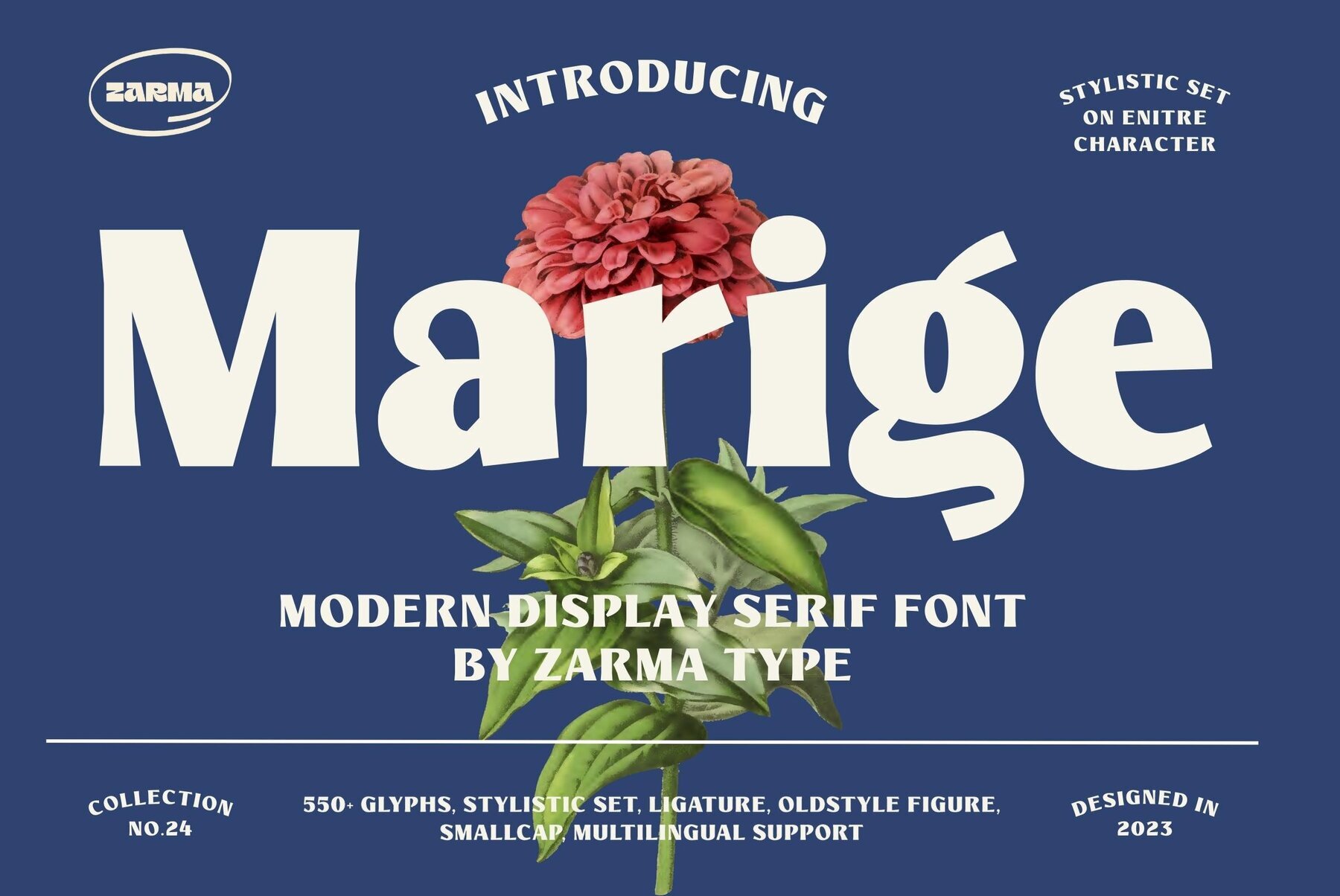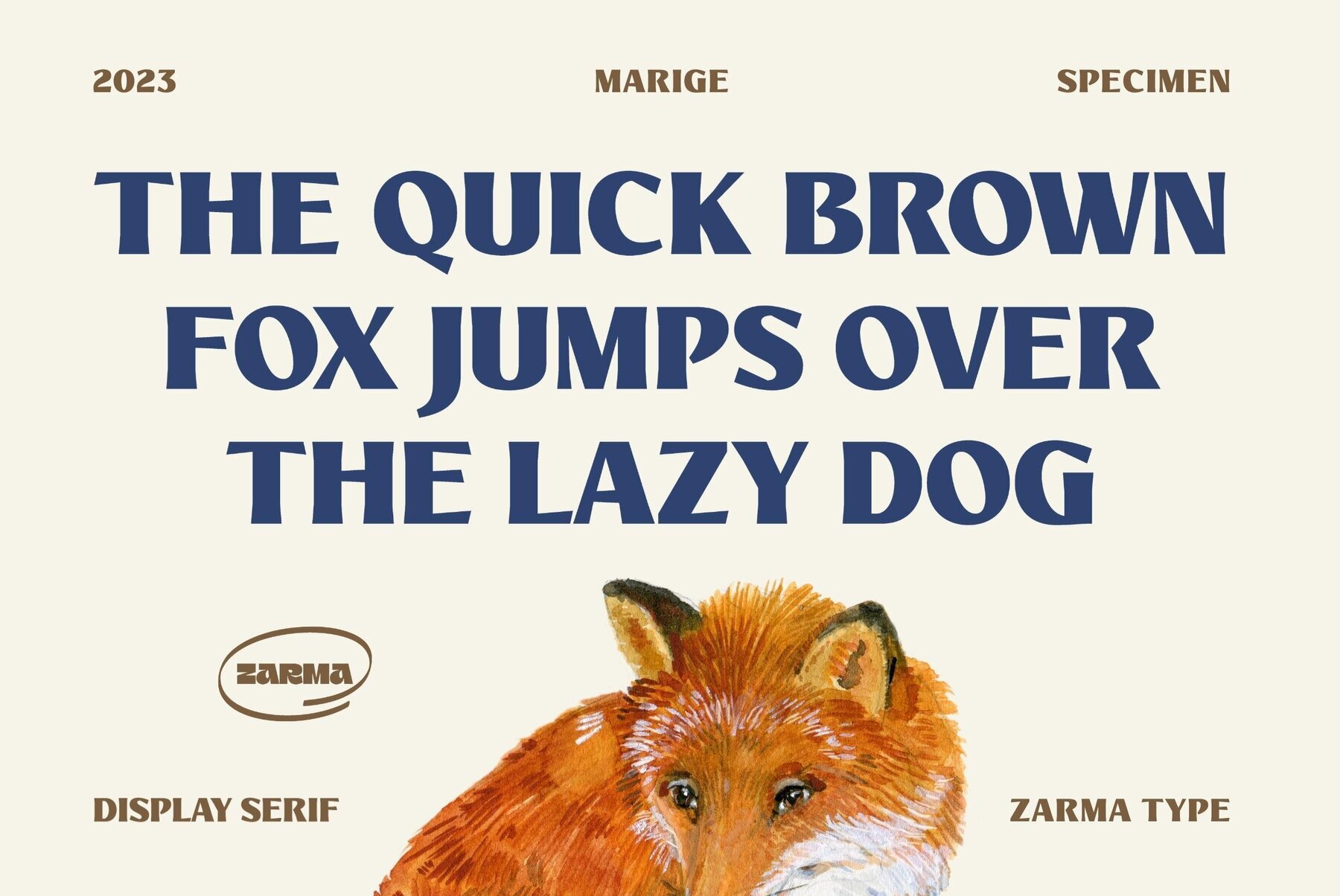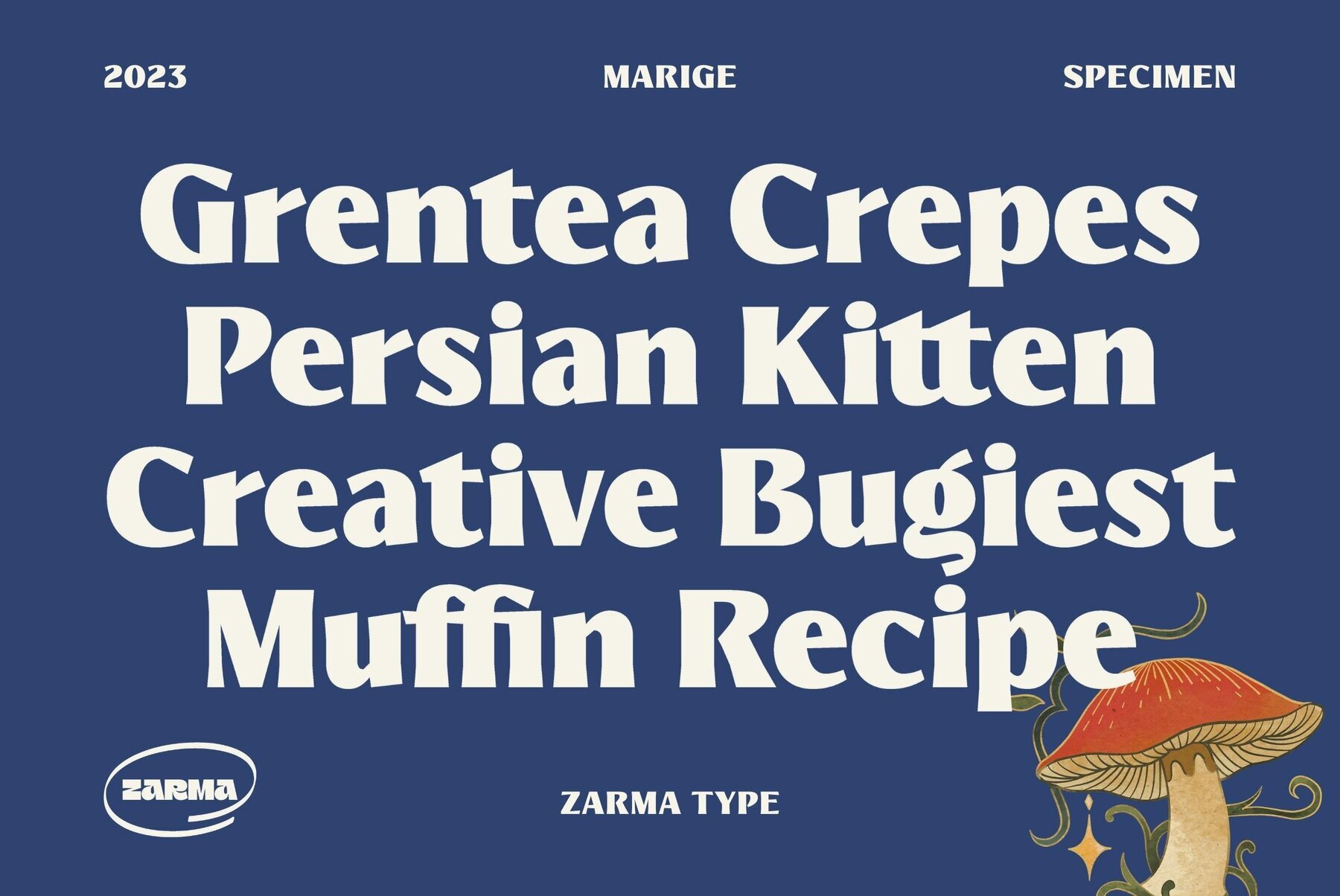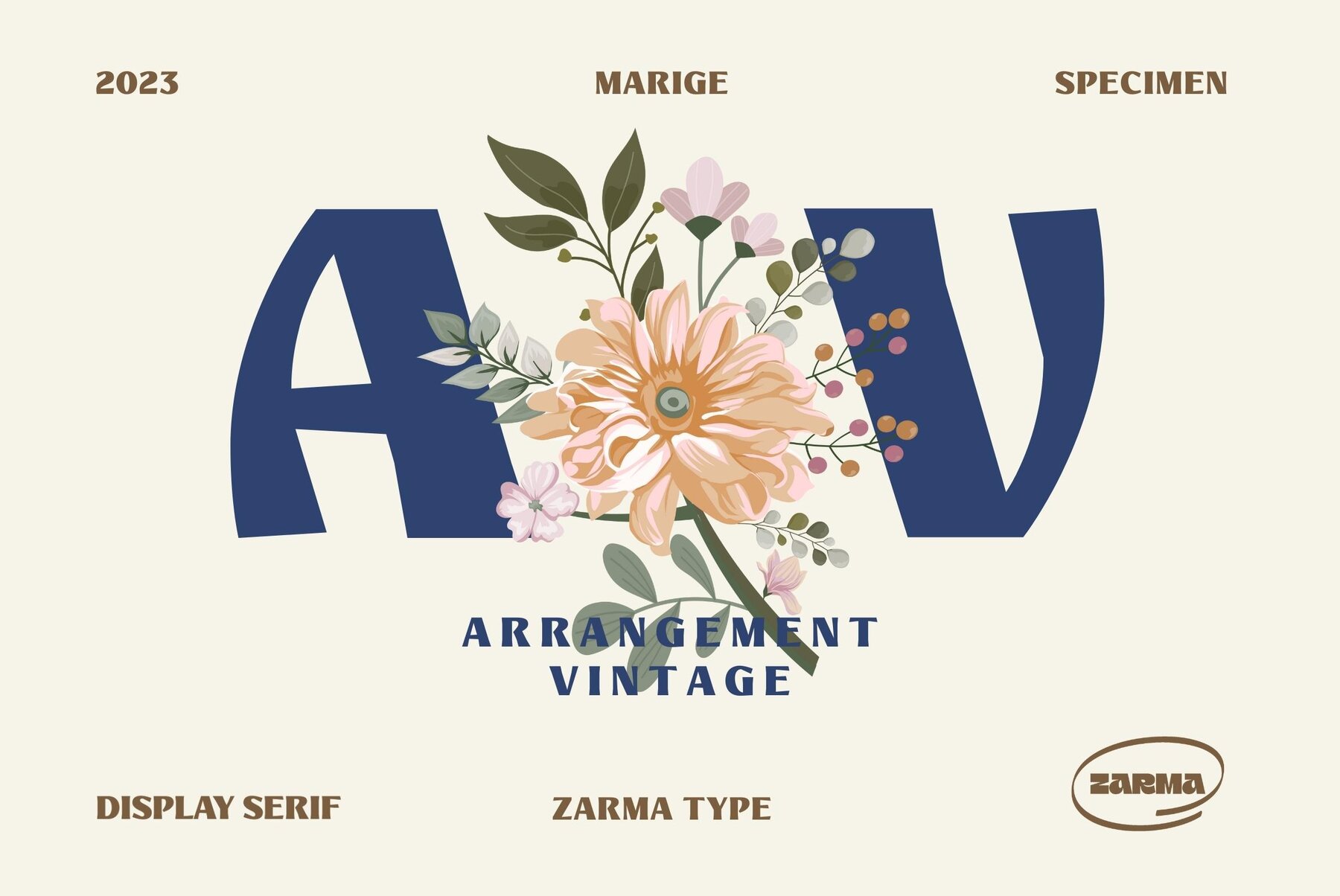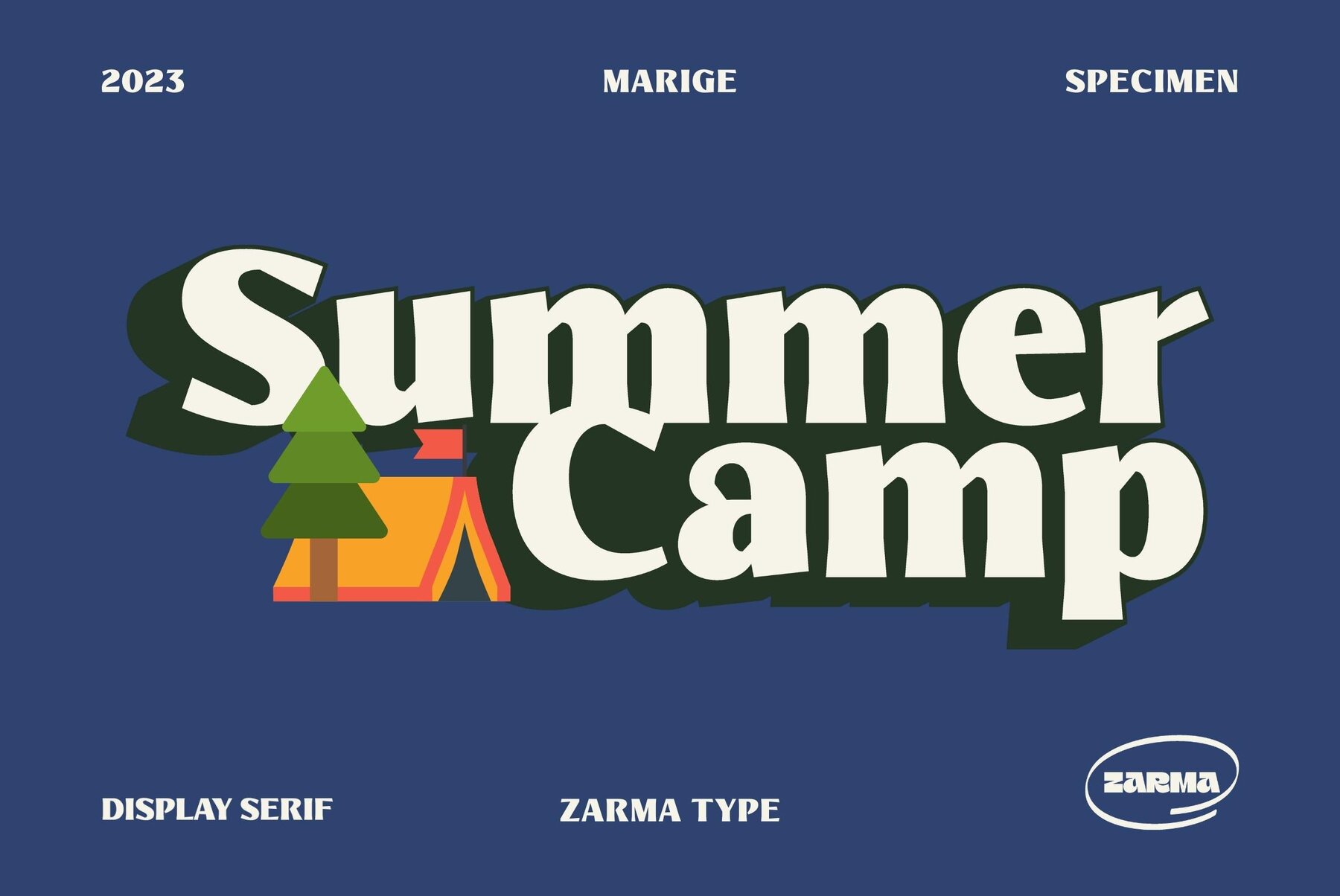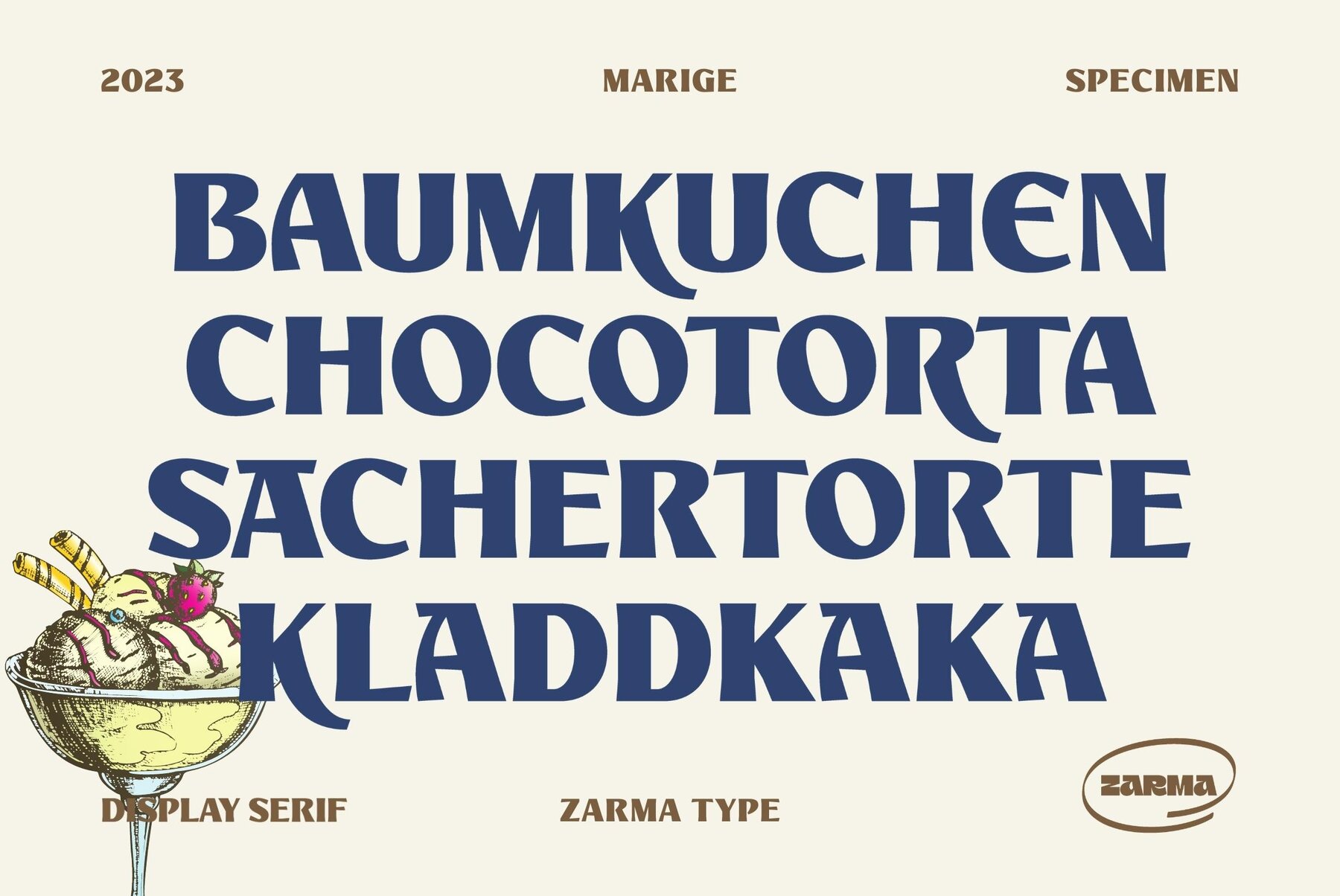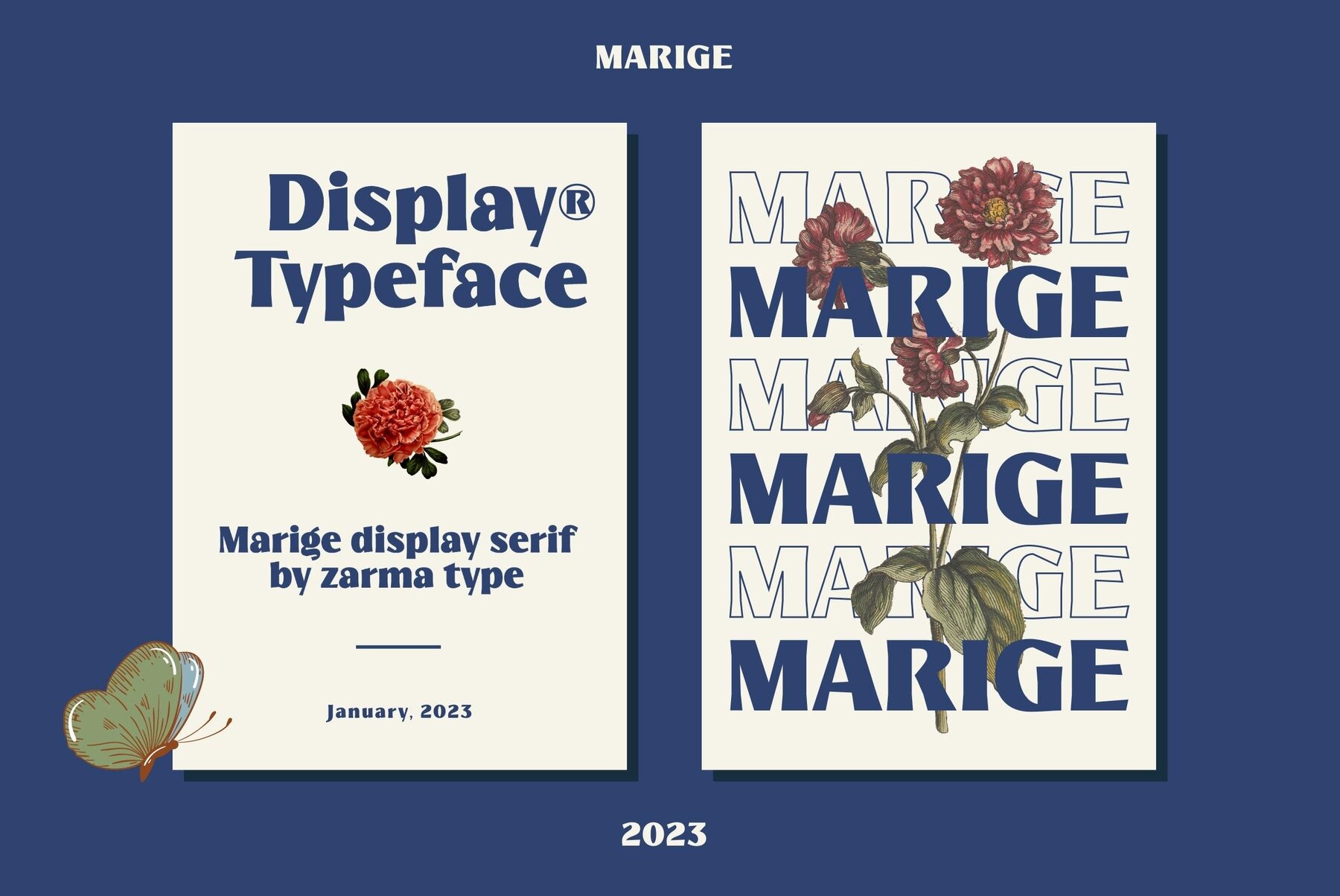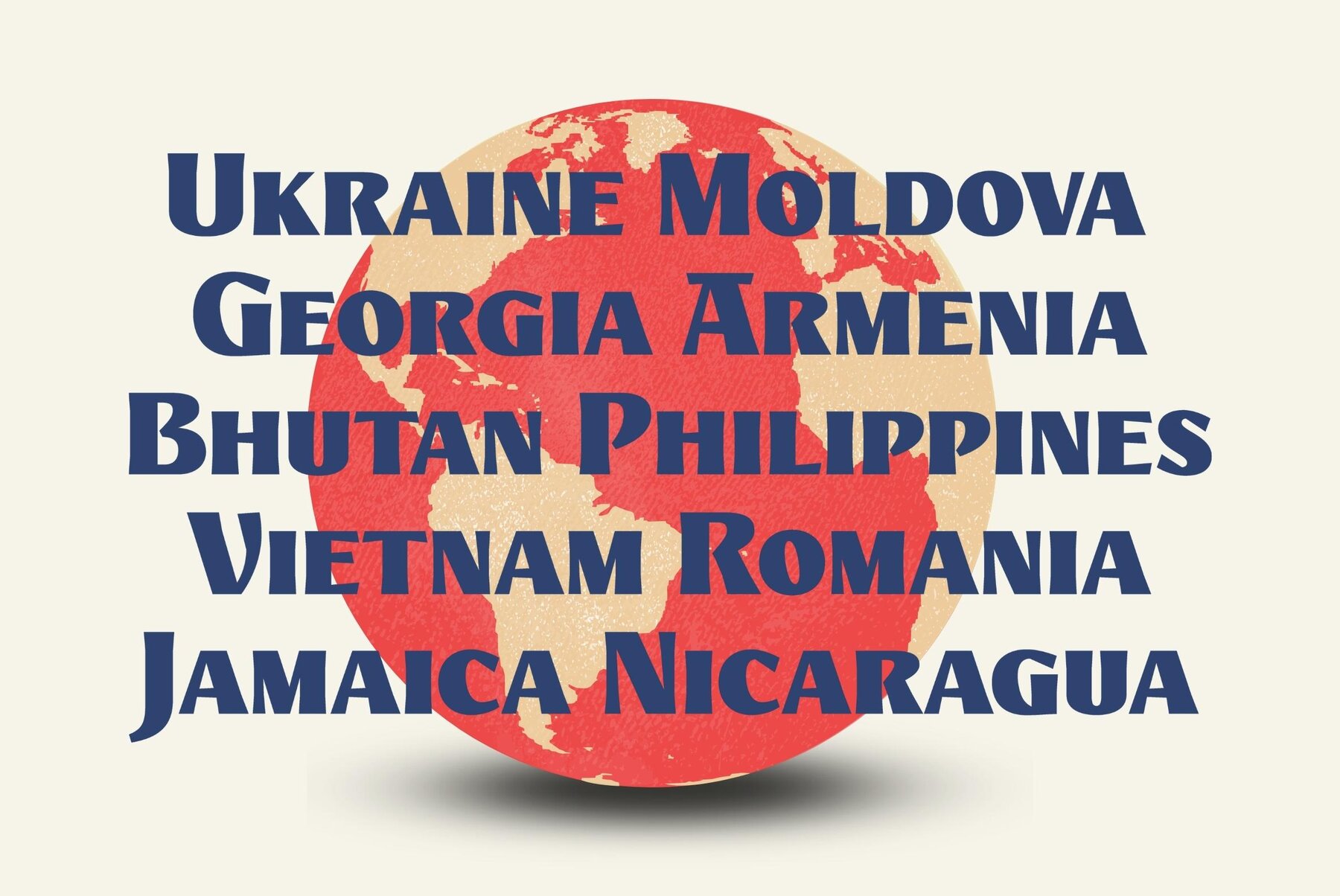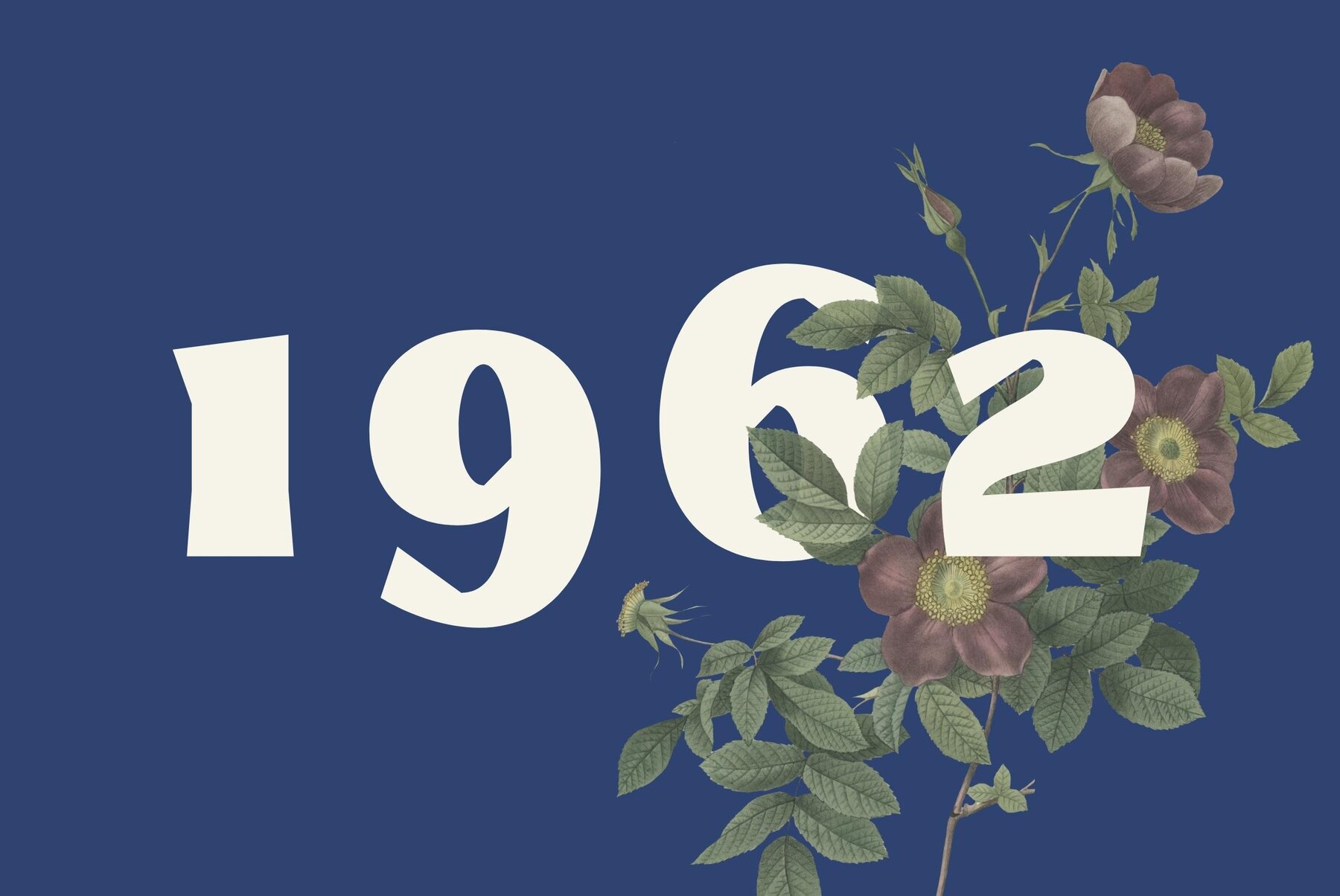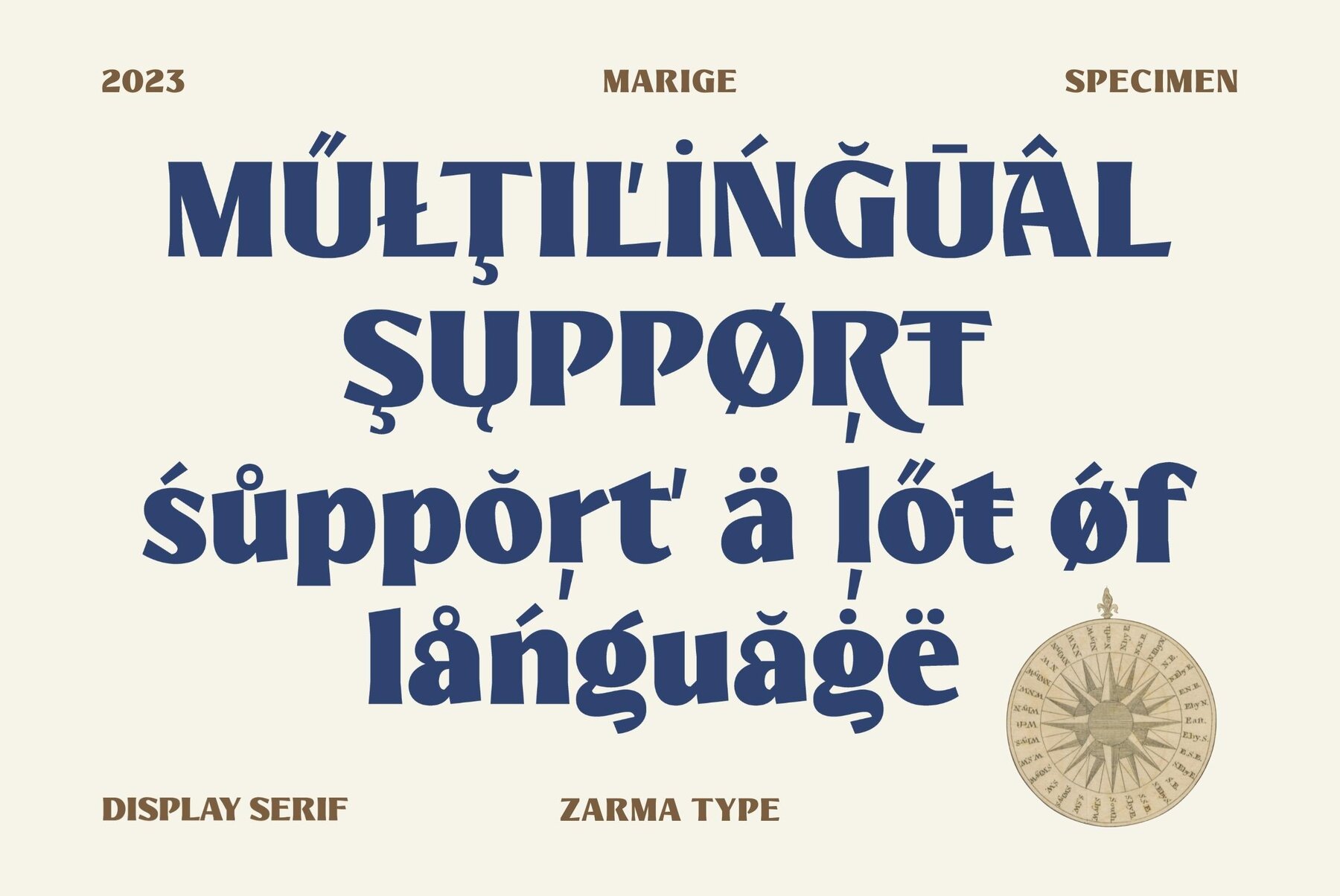
Marige Font
Marige Regular
Marige is a striking typeface that commands attention with its bold, high contrast design. This font exudes a sense of strength and confidence, making it an ideal choice for a variety of design projects. Whether crafting logos, headlines, or posters, Marige offers a blend of classic and contemporary appeal. This versatility ensures it integrates seamlessly into any creative endeavor, providing a timeless touch.Marige: A Bold Typeface of Distinction
Its ability to convey both tradition and modernity makes Marige an indispensable tool for designers seeking to create impactful visual experiences.